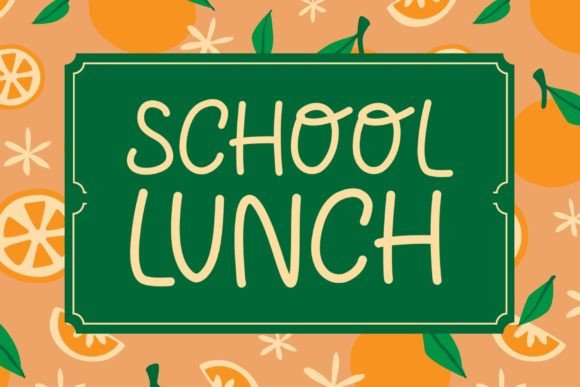
Step into a world where learning and playfulness collide with School Lunch Font, the charming and inviting script font crafted by MyFontsShop. Designed to transport you back to the carefree days of primary school, this font exudes warmth, whimsy, and an innocent playfulness that will capture hearts and imaginations.
School Lunch Font is not just a font; it's an educational adventure waiting to happen. Each letter, meticulously hand-drawn, carries the spirit of a child's imagination, inviting you to create captivating designs that ignite curiosity and spark a love for learning. From worksheets to posters, presentations to greeting cards, let School Lunch Font be your creative companion, transforming ordinary text into extraordinary expressions of joy.
With its playful curves and effortless readability, School Lunch Font is a versatile choice for a wide range of projects. Whether you're a teacher, a parent, or a designer seeking to engage young minds, this font is your secret weapon for crafting materials that resonate with children. Its friendly demeanor will make learning feel like a delightful journey, while its clear letterforms ensure that every word is easily understood, fostering a positive learning environment.
But School Lunch Font isn't just confined to the classroom. Its versatility extends beyond educational settings, making it a perfect choice for crafters, digital designers, and anyone seeking a touch of whimsy in their creative endeavors. Imagine invitations that feel like personalized messages from a beloved teacher, or logos that evoke the nostalgia of childhood memories. From social media posts that pop with personality to heartwarming greeting cards that convey genuine care, School Lunch Font is your creative ally, transforming everyday designs into cherished keepsakes.
Embrace the magic of School Lunch Font and let your creativity flourish. Indulge in the joy of creating designs that connect with children on a deeper level, making learning an unforgettable experience. With its enchanting charm and boundless versatility, School Lunch Font is more than just a font; it's an open invitation to explore the world through the eyes of a child, where imagination knows no bounds and every day is an adventure waiting to be discovered.